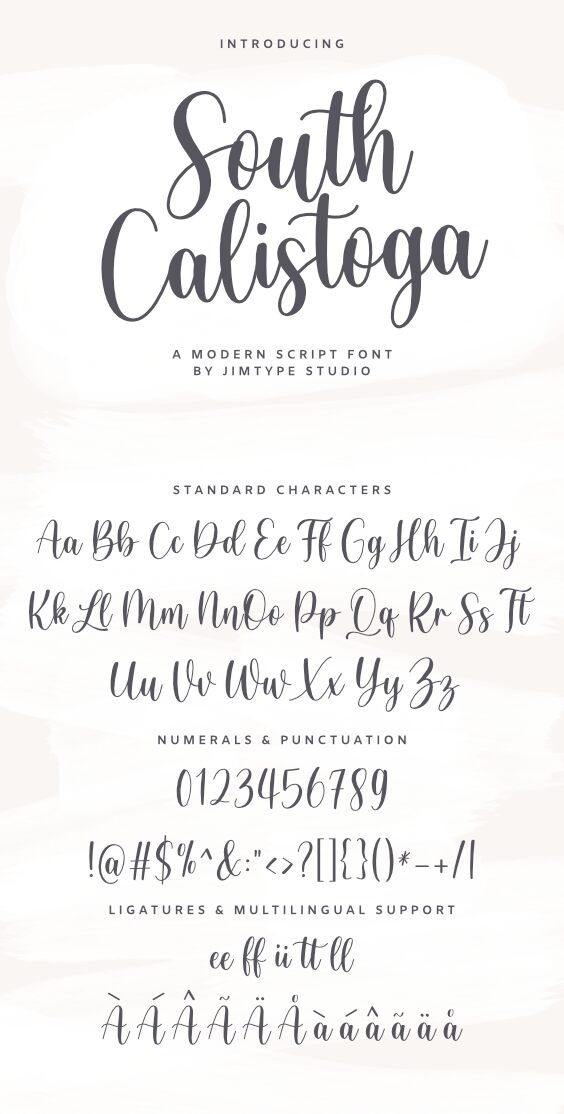
Introducing South Calistoga - a beautiful, light calligraphy font designed by Jamaludin JK @Jimtypestudio. Perfect for adding an elegant, handwritten touch to projects like invitations, greeting cards, wedding stationery and more.